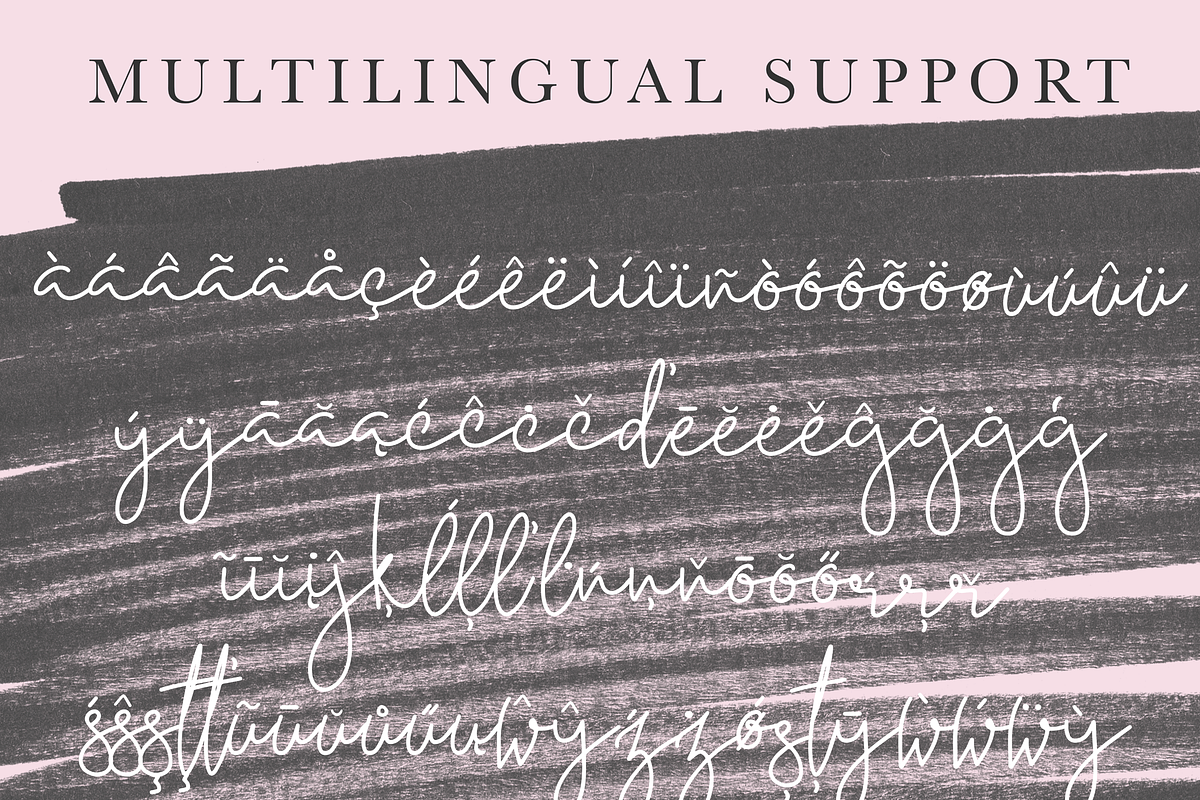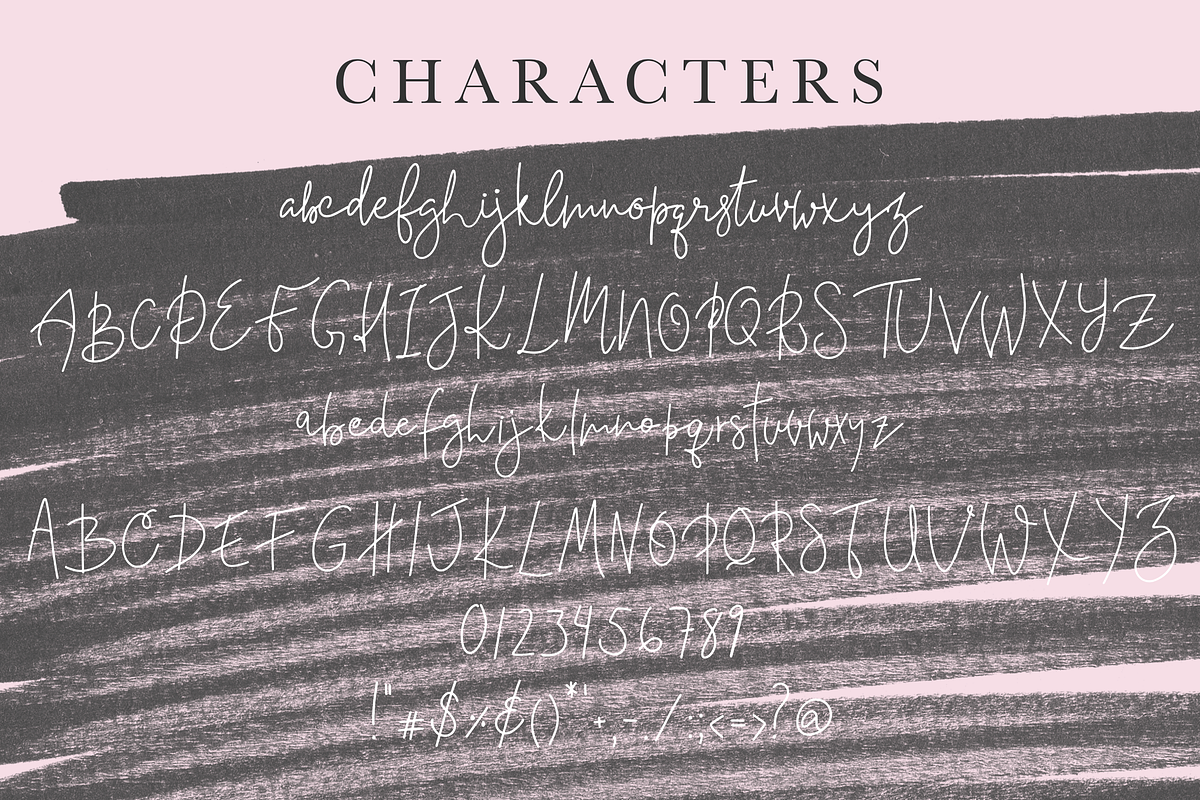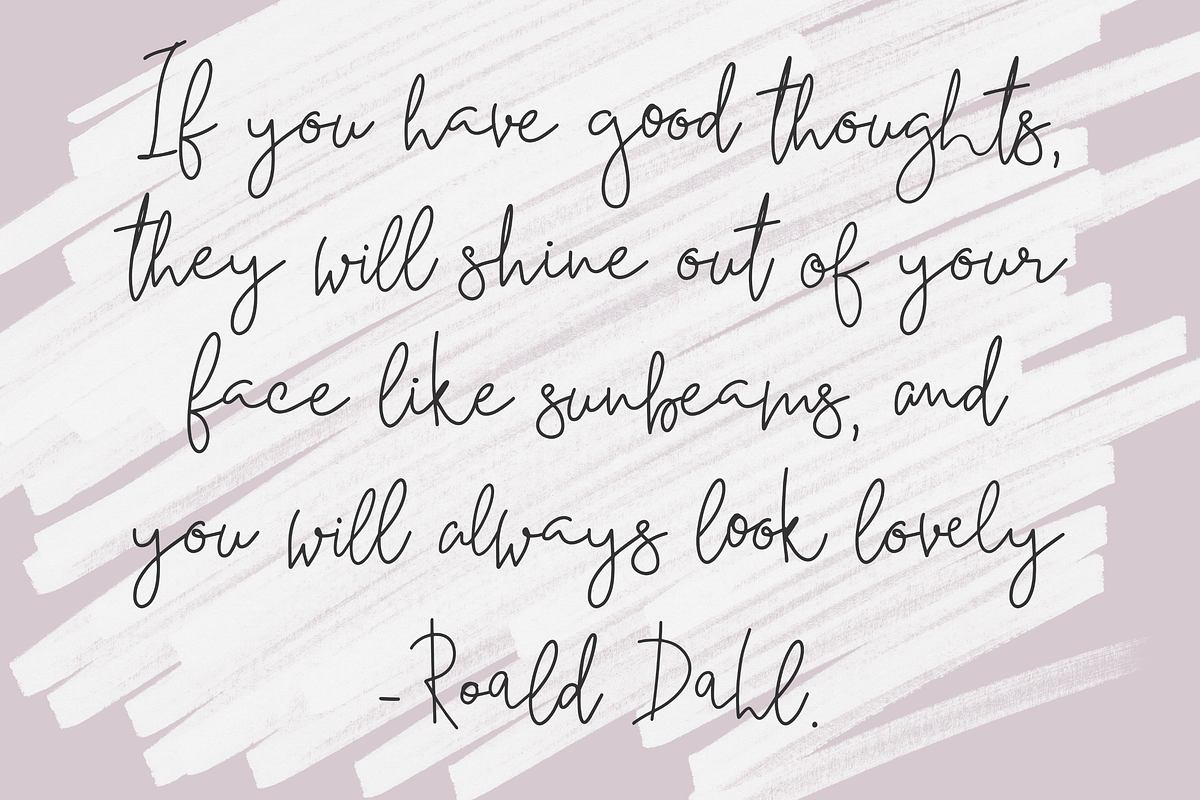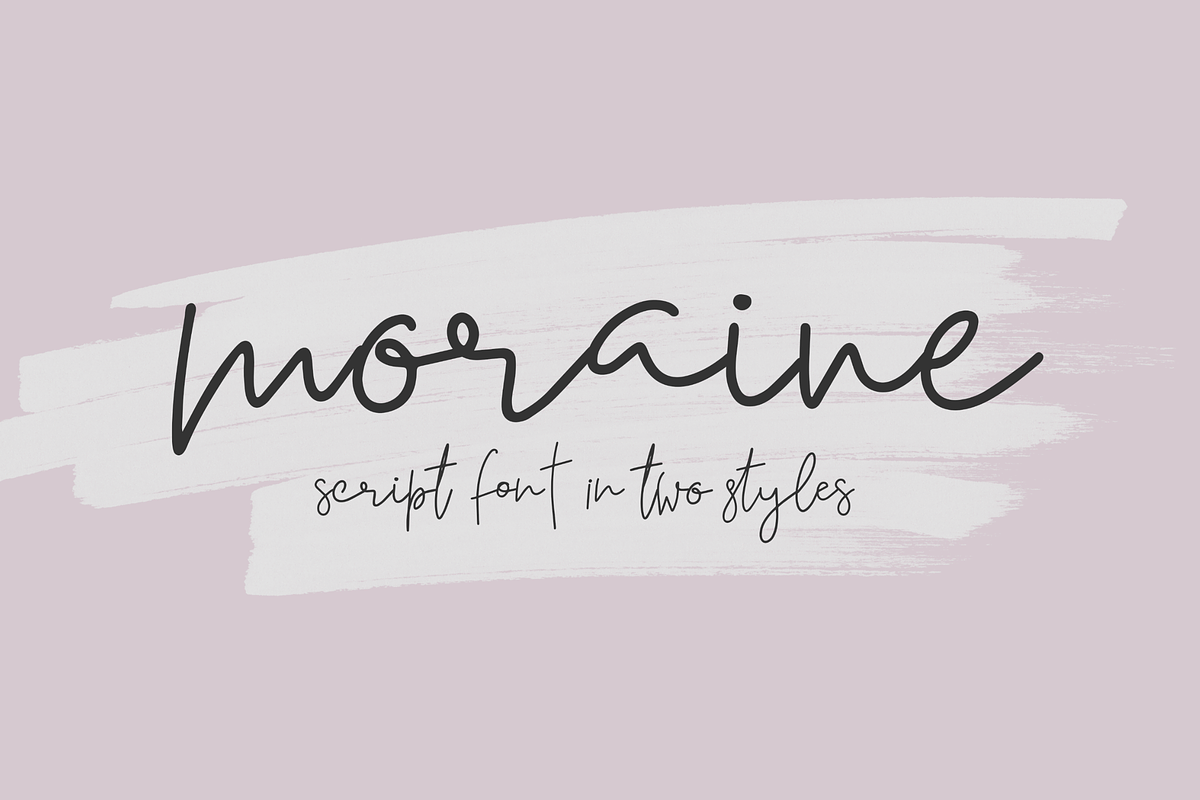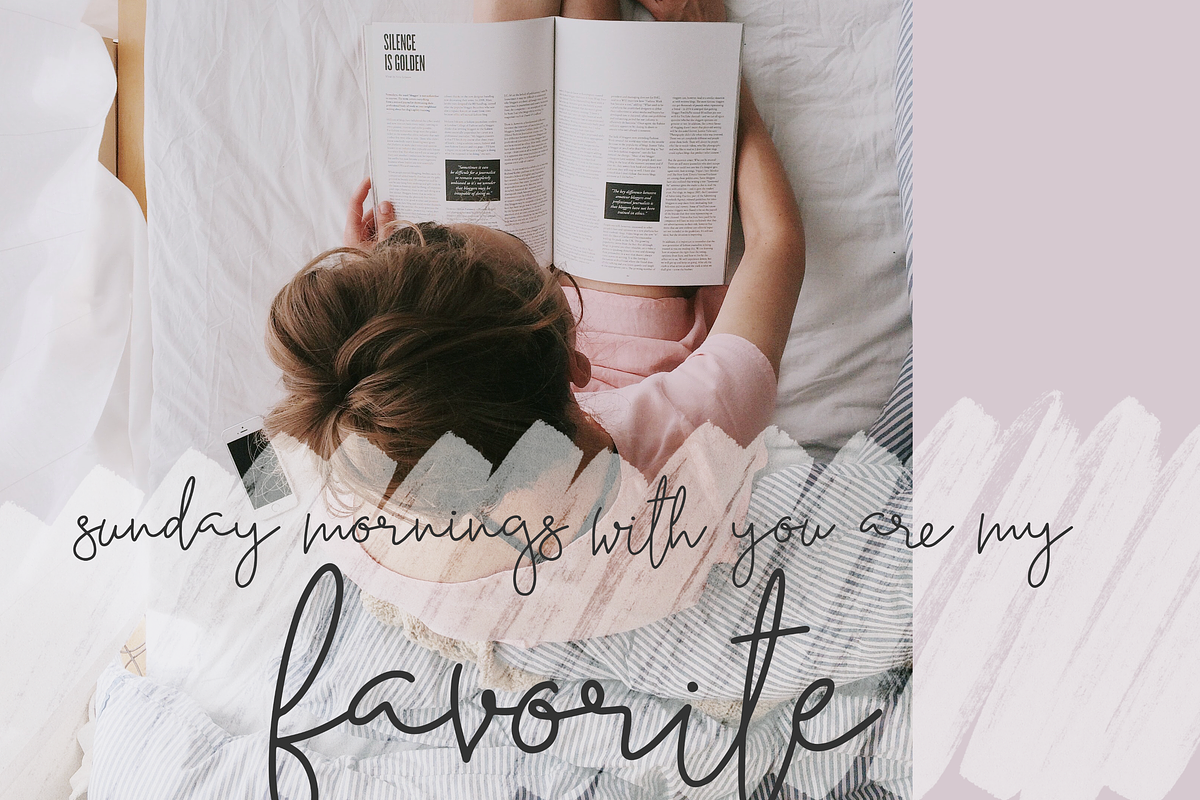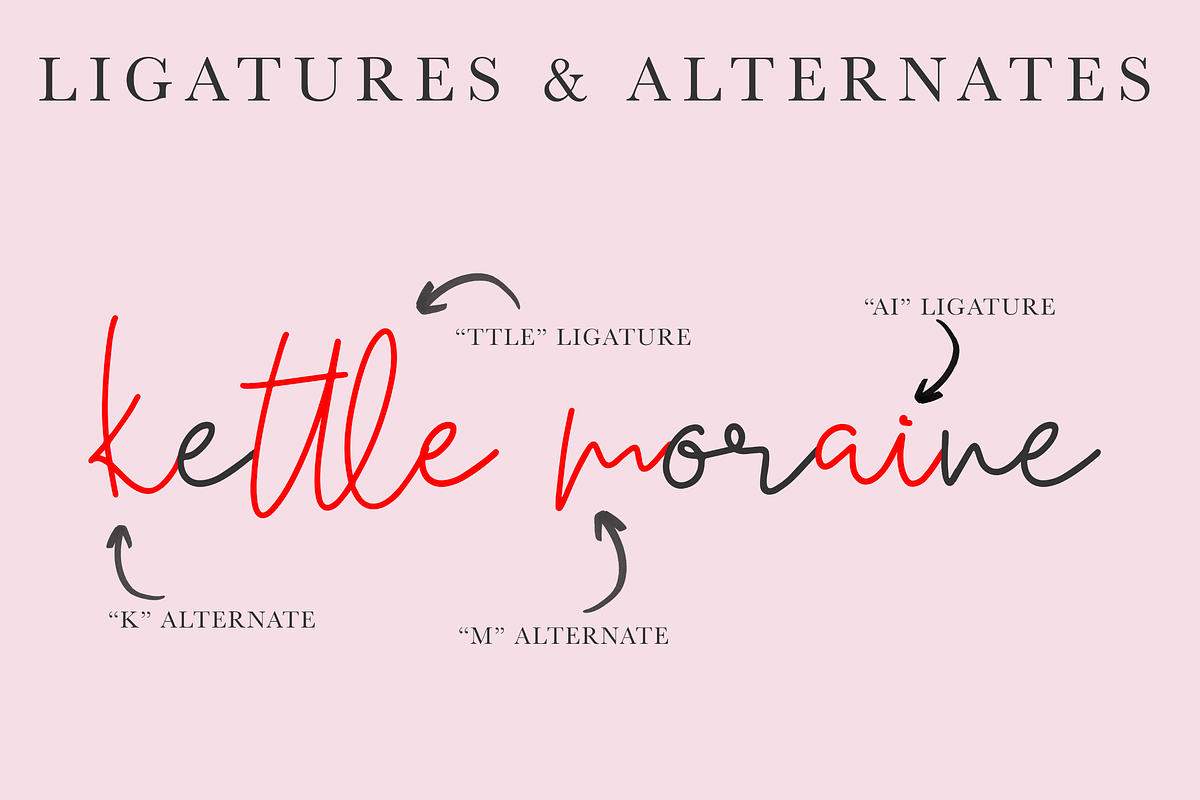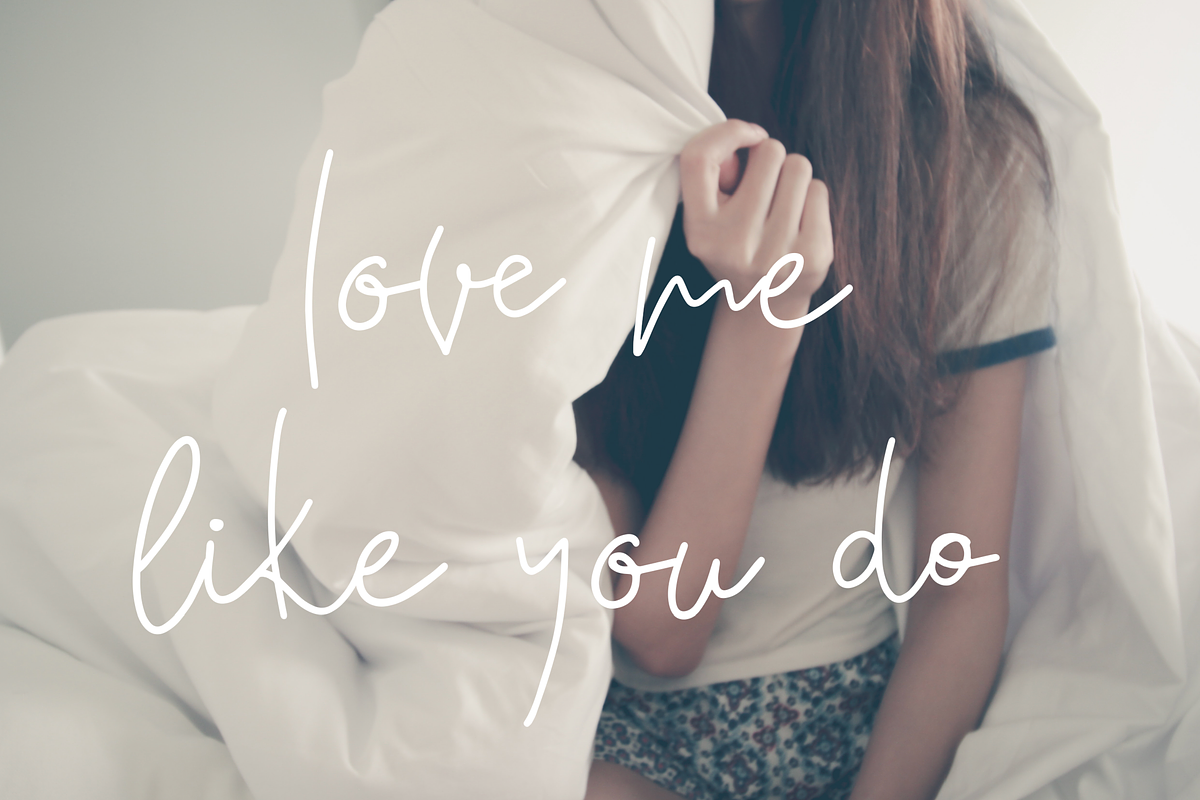
Moraine | A Handwritten Script Set
Introducing Moraine: a handwritten script font set with two styles, and over 30 ligatures. Interchange them all for truly individual handwritten appearances.
- Regular style (lowercase, uppercase, language support)
- Alt style (lowercase, uppercase)
- 34 ligatures